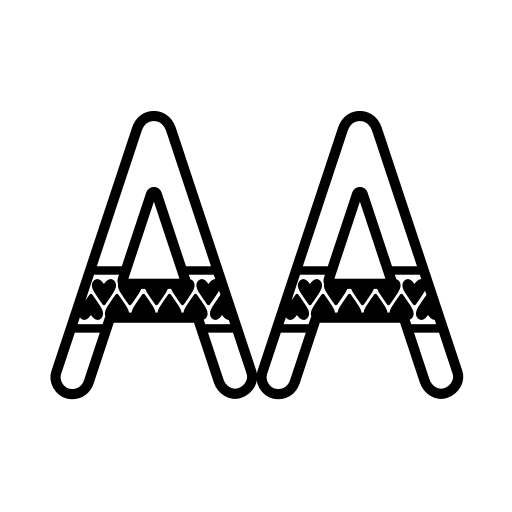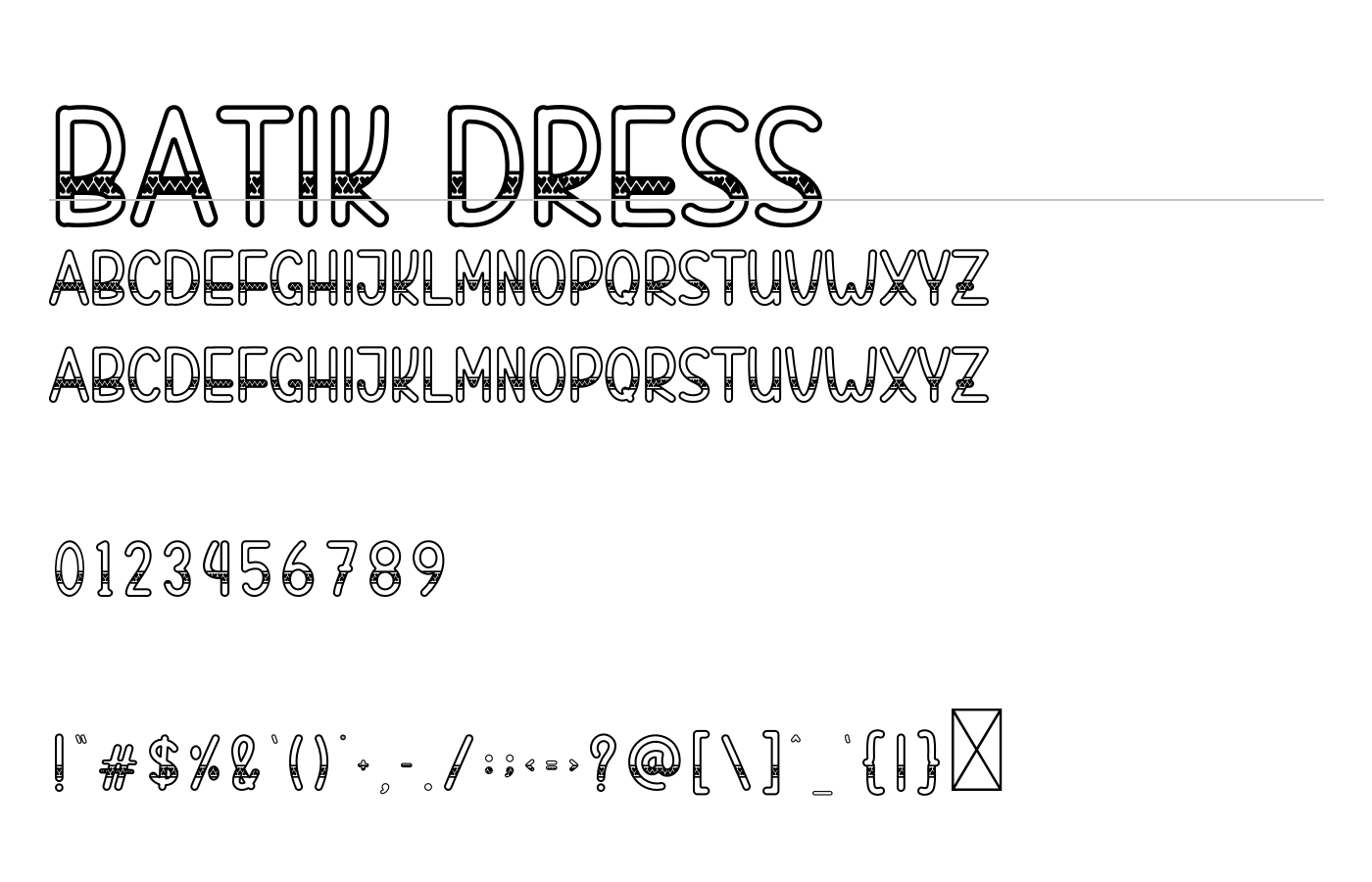
Batik Dress is a playful and decorative sans serif font characterized by its thin, rounded strokes and distinctive patterned midsection that resembles traditional batik fabric designs. Its upright and consistent letterforms with double-story characters give it a quirky yet orderly feel, making it ideal for creative, fashion-forward branding, posters, and packaging where a unique and stylish look is desired. This font adds a charming, handcrafted touch while maintaining clarity and modernity.
Batik Dress Font